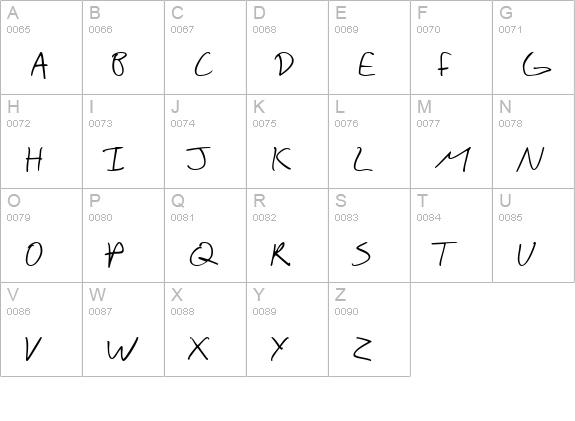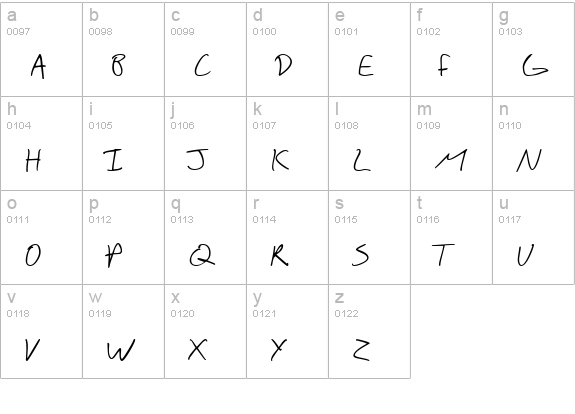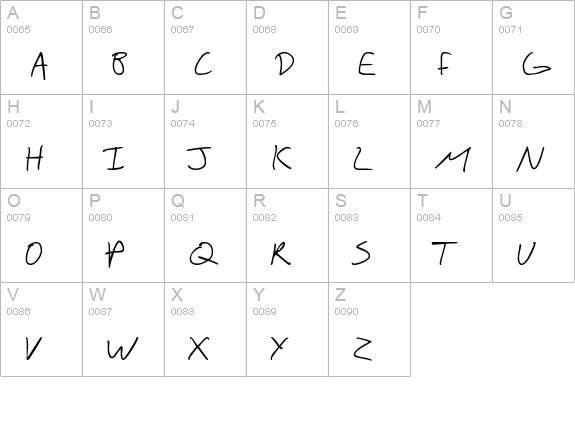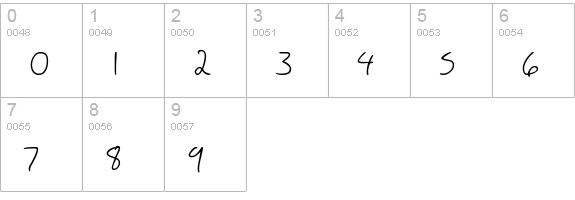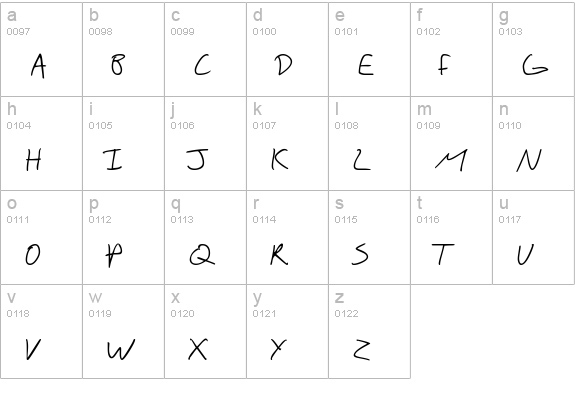
SF Scribbled Sans SC Font Details
Introducing SF Scribbled Sans SC, a captivating font that adds a playful touch to any design project. With its unique and quirky style, this font is sure to catch the attention of your audience and bring your creative visions to life. SF Scribbled Sans SC boasts a hand-drawn aesthetic, giving your text a charming, handwritten look. Each character is meticulously crafted, with irregular strokes and uneven lines that replicate the imperfect beauty of a real-life scribble. Whether you're designing a children's book, a logo, a poster, or even a social media graphic, this font is the perfect choice to infuse your work with a touch of whimsy. And the best part? SF Scribbled Sans SC is absolutely free! That's right, you can download this fantastic font at no cost from FontsMarket.com. We believe that great design should be accessible to everyone, so we're thrilled to offer this font as a free download. Now, you can elevate your projects without breaking the bank. The versatility of SF Scribbled Sans SC knows no bounds. It can be used for both personal and commercial projects, making it an ideal choice for designers, artists, and creatives of all kinds. From greeting cards to website headers, from branding to advertisements, this font will add a unique and eye-catching touch to your work. So, what are you waiting for? Download SF Scribbled Sans SC for free at FontsMarket.com and let your creativity run wild. With its playful charm and limitless possibilities, this font is sure to become a staple in your design toolkit. Explore the world of SF Scribbled Sans SC and watch your designs come to life with a touch of whimsy and originality.